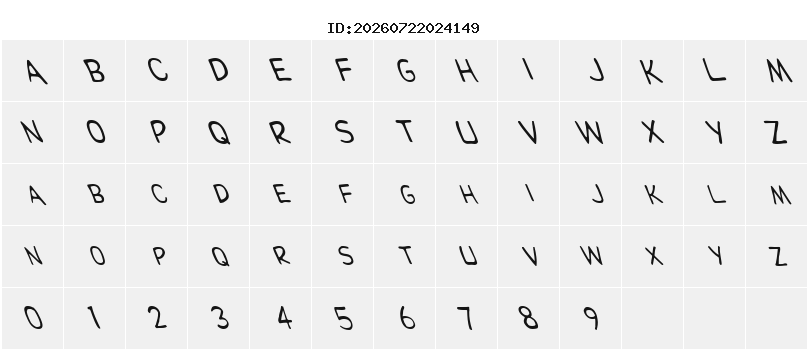
FZ BASIC 29 LEFTY Preview
• Font Name: FZ BASIC 29 LEFTY
• Full Font Name: FZ BASIC 29 LEFTY
About FZ BASIC 29 LEFTY.ttf
FZ BASIC 29 LEFTY.ttf is a modern, elegant sans-serif font designed for ultimate readability and visual harmony. Perfect for branding, headlines, web design, and print materials.